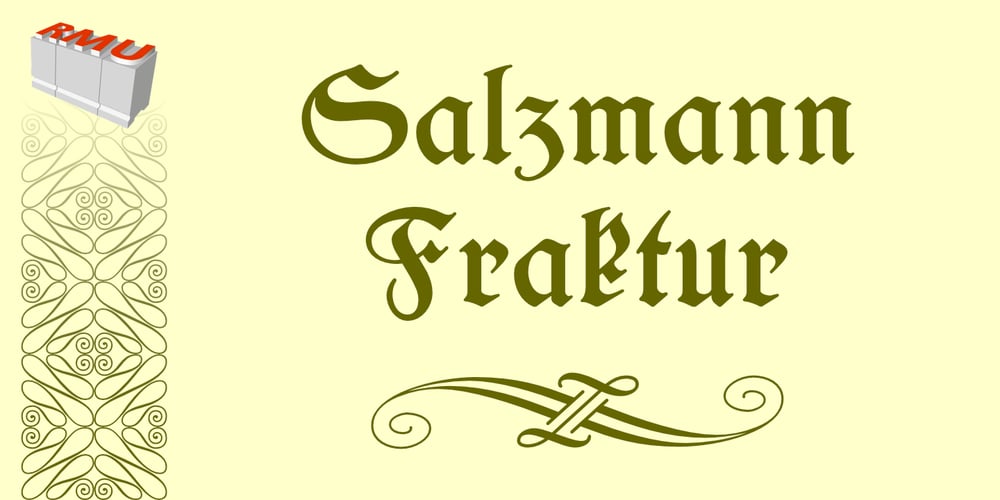
Salzmann Fraktur Font Family was designed by Ralph M. Unger and published by RMU. Salzmann Fraktur contains 1 styles and family package options. Max Salzmann’s blackletter font released by Schelter & Giesecke in 1912 revived and spiced up with some beautiful filling and framing ornaments.